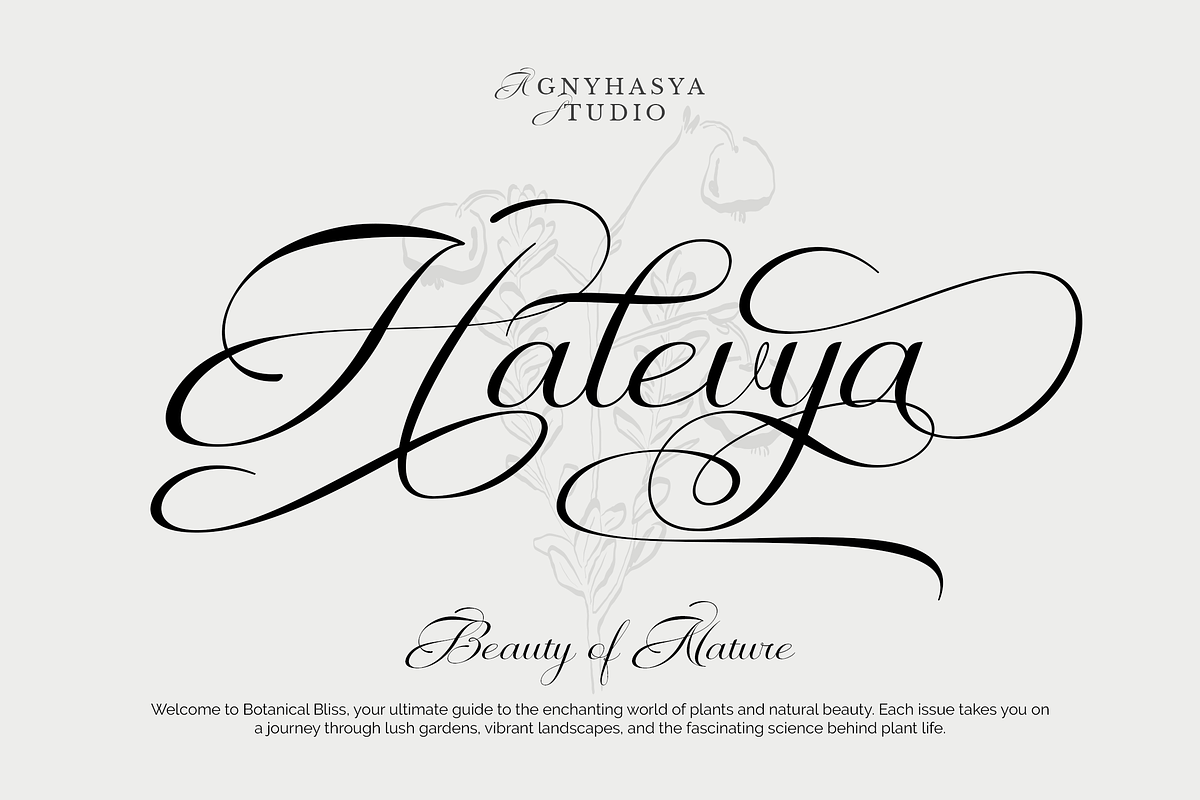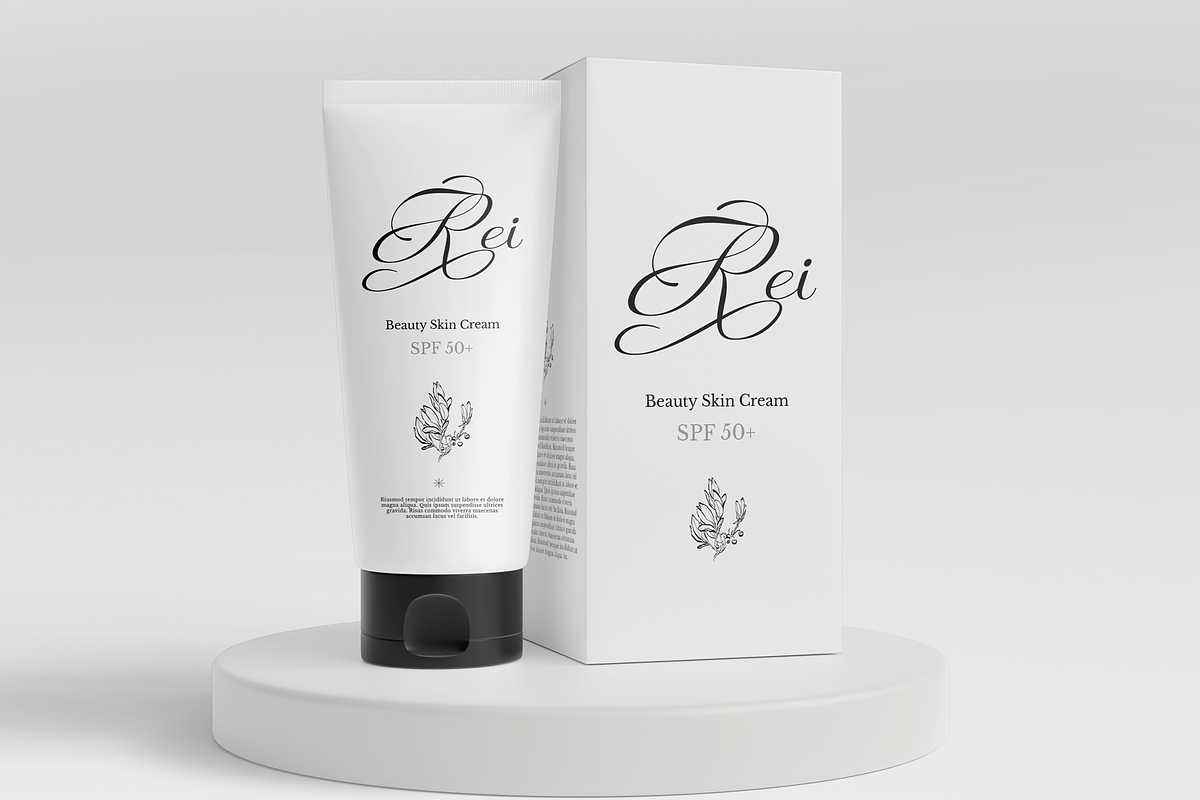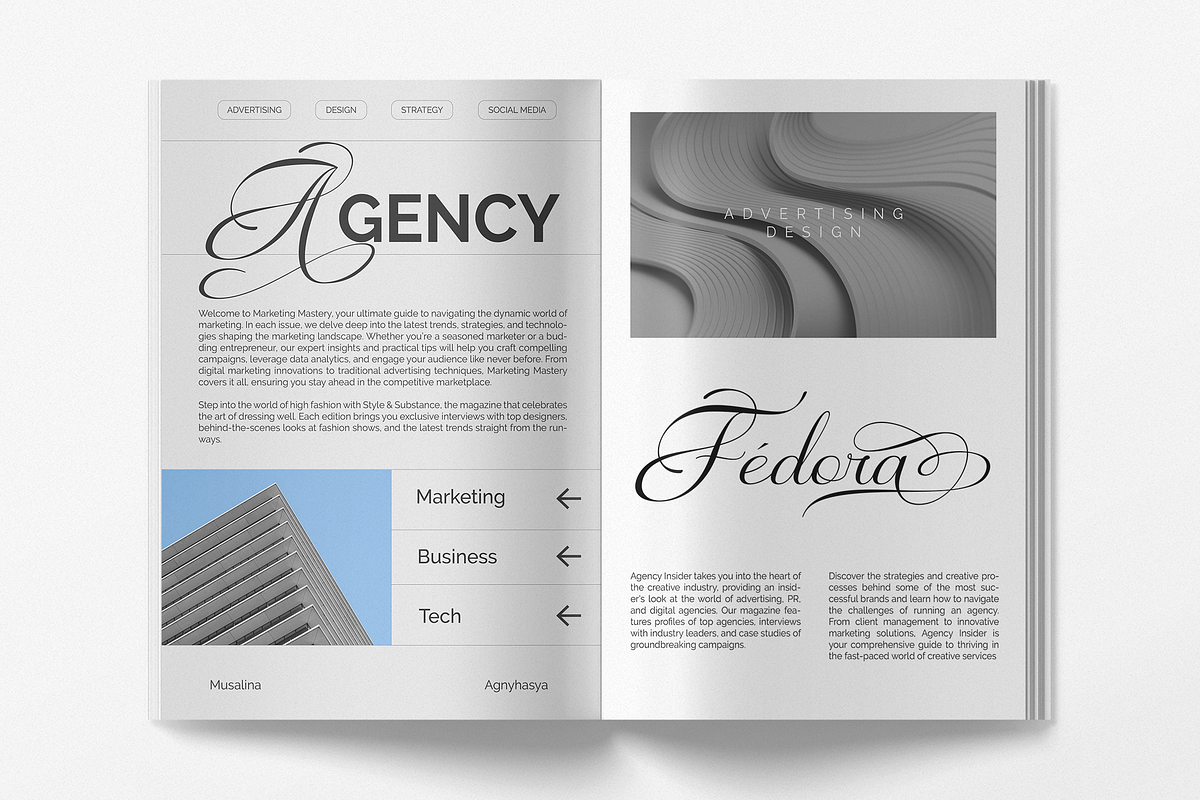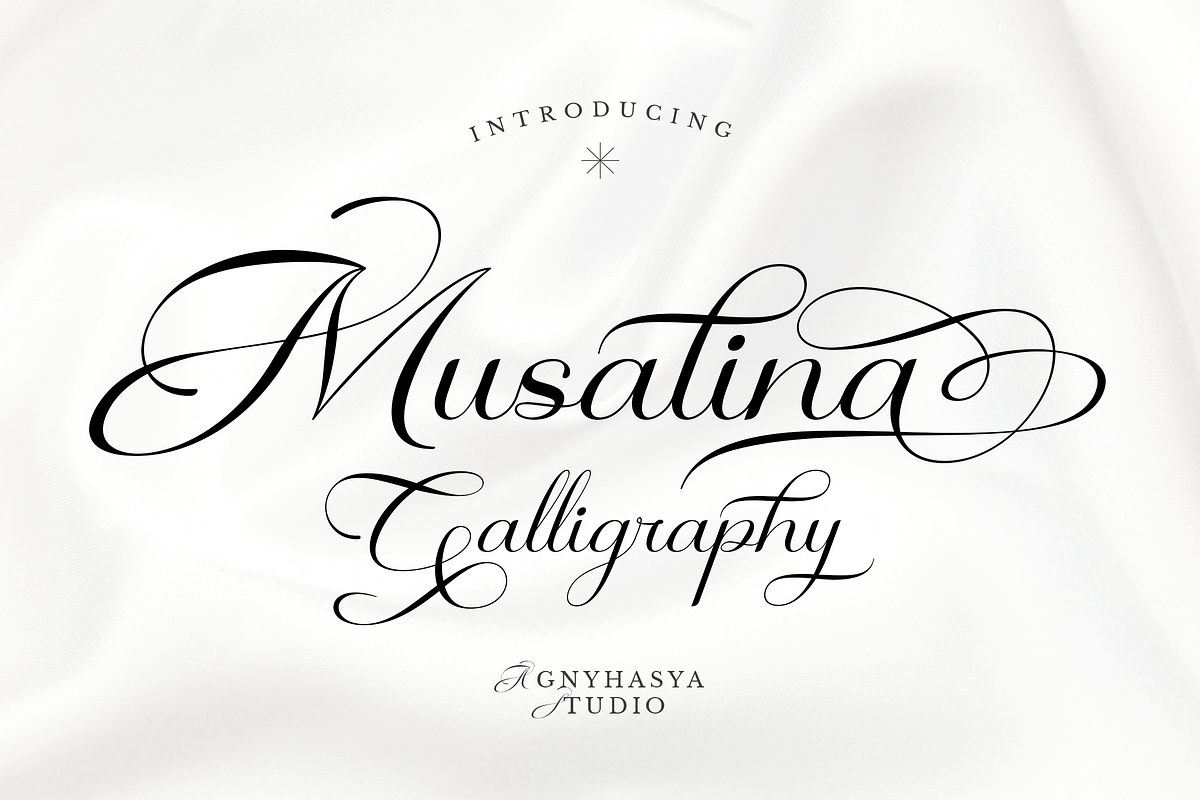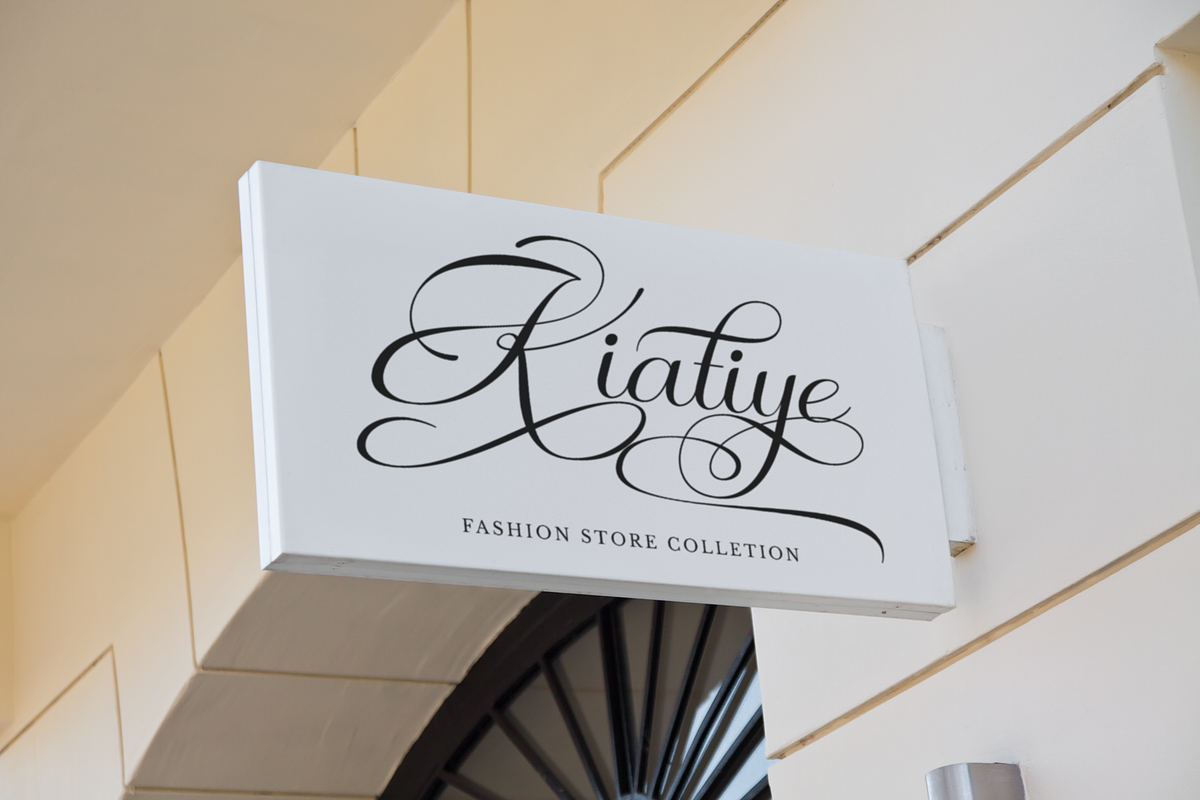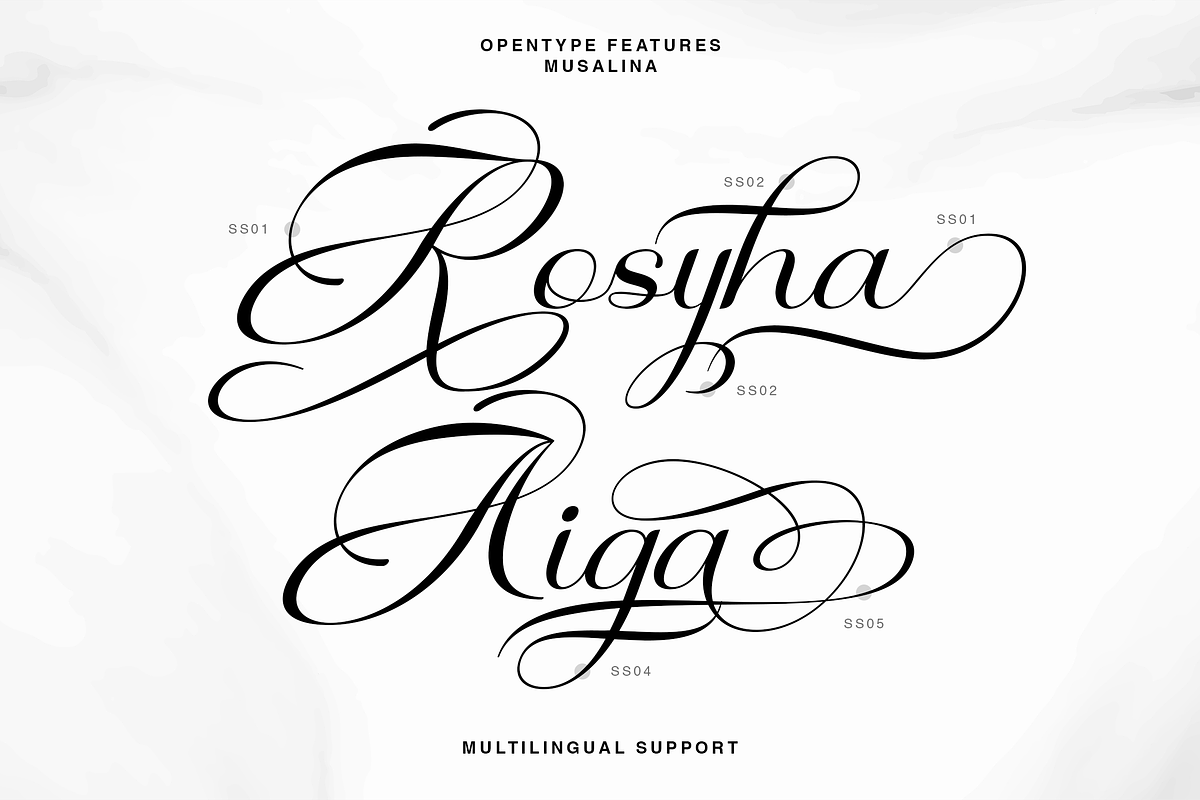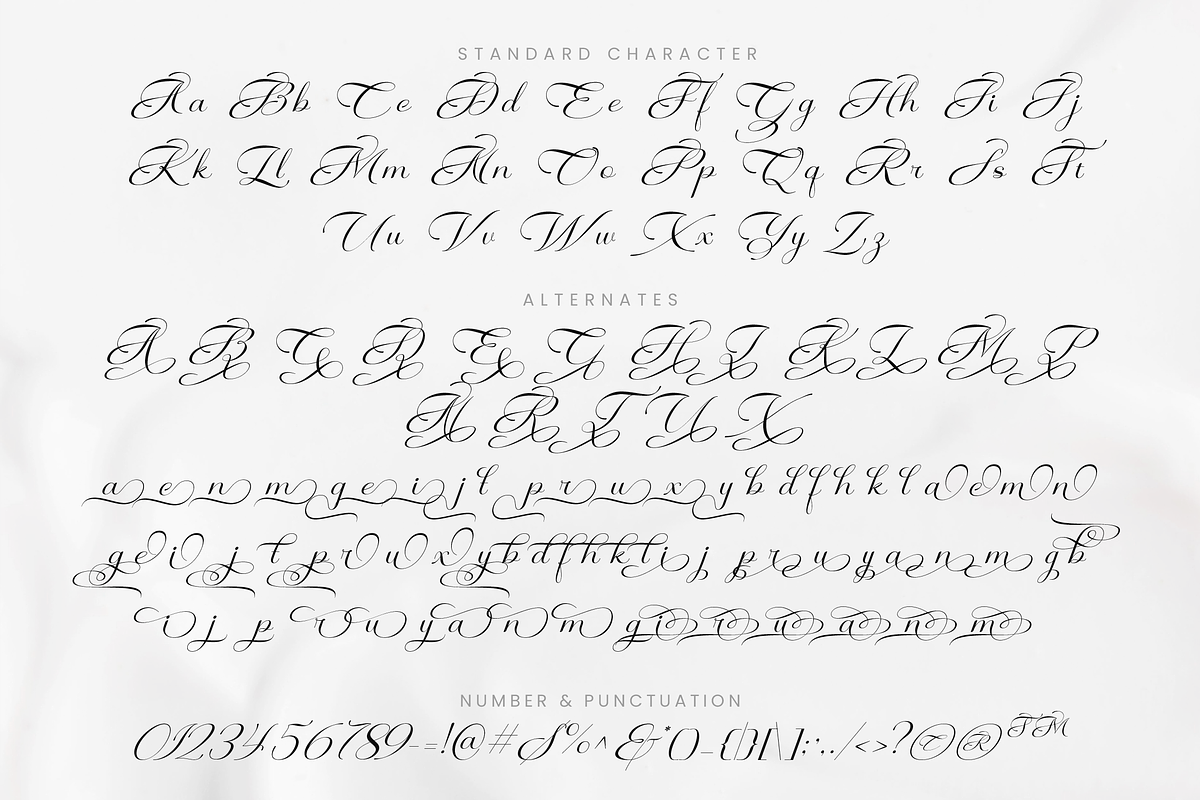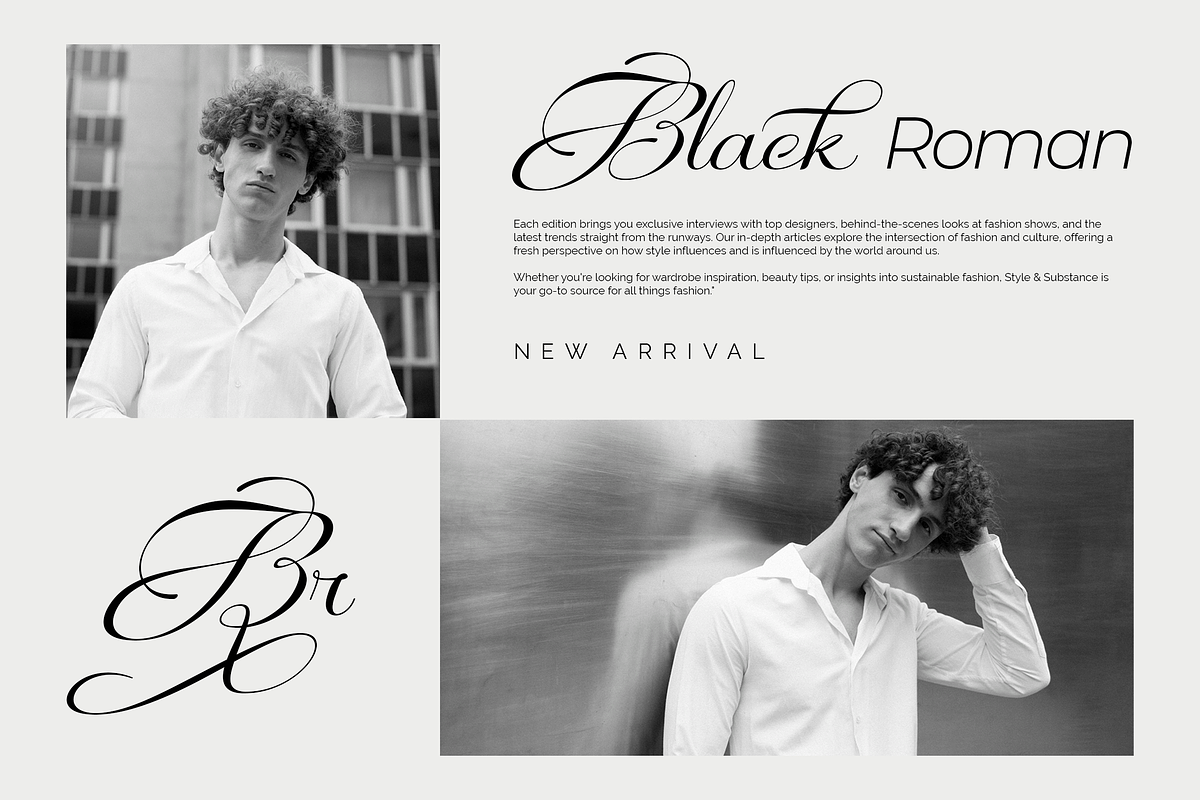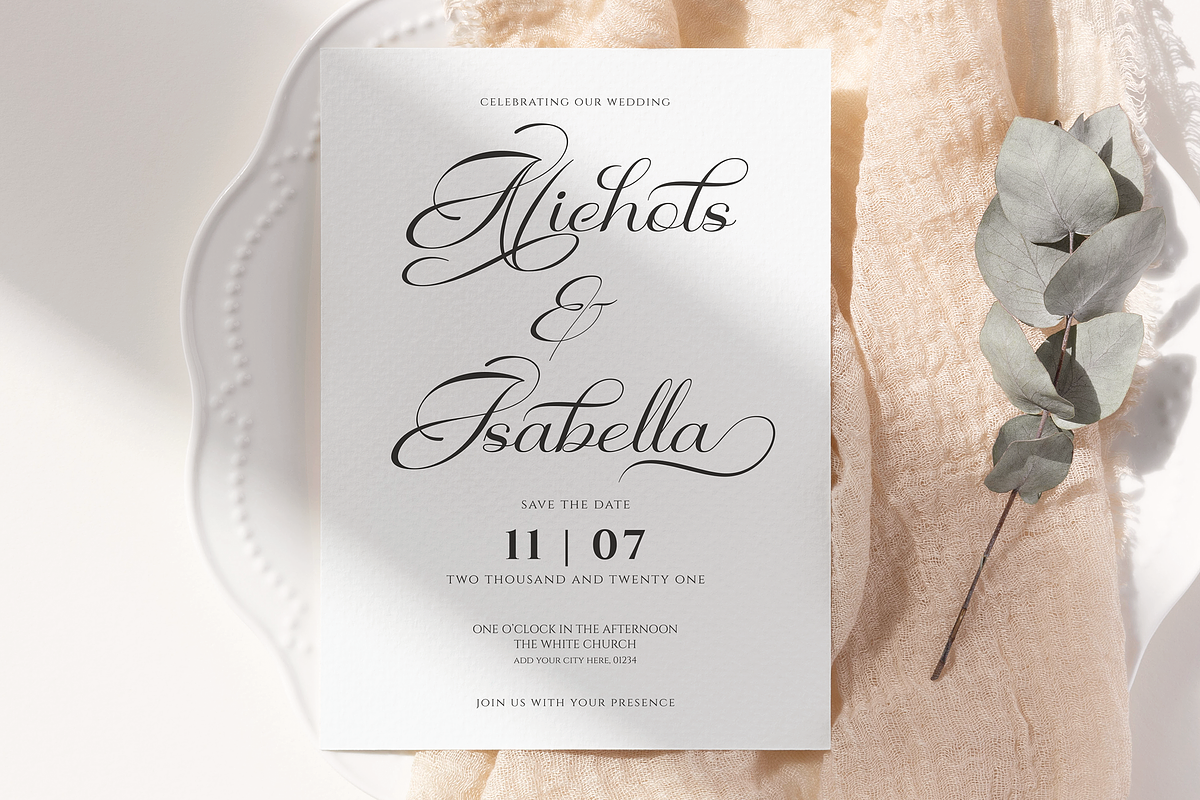
Musalina - Calligraphy Script Font
Introducing Musalina a calligraphy script typeface with a classic style, elegance, and luxurious touch. Inspired by old letter handwriting and italic text. it features stylistic alternates and ligatures. Try out this desirable calligraphy to enjoy the richness of OpenType features and create perfect elegant typography designs that enhance your creativity.
Musalina is perfect for various design projects, including logos, branding, business cards, certificates, magazine designs, book covers, art quotes, wedding media, beauty, fashion designs, and special events that require a classic, formal, or luxurious look.
- Uppercase, Lowercase, Numeral & Punctuation
- Alternates and Ligatures